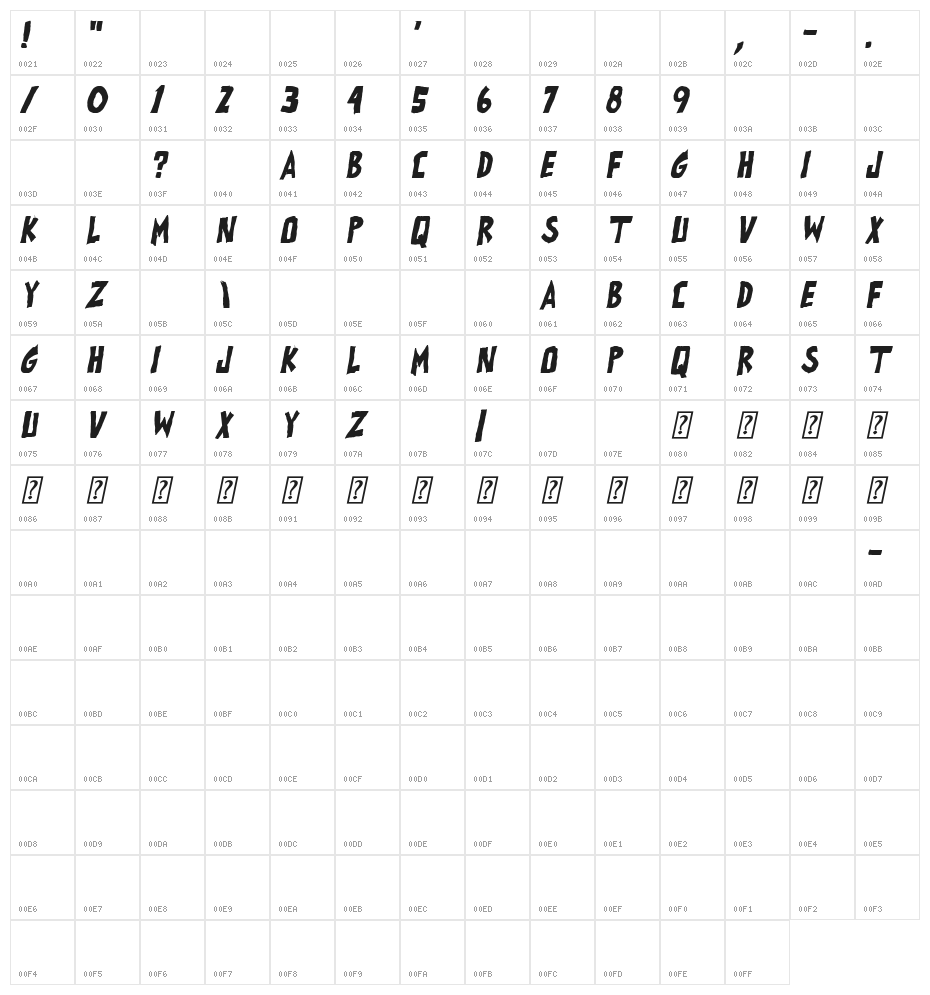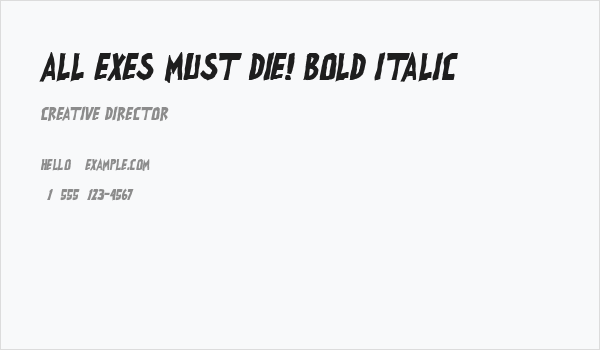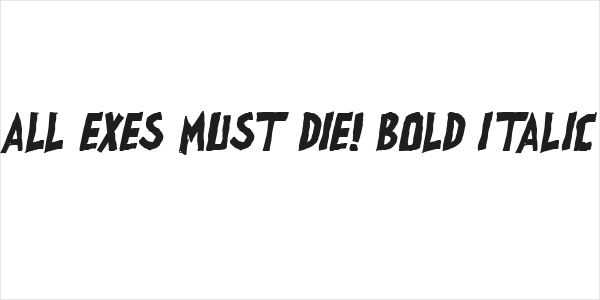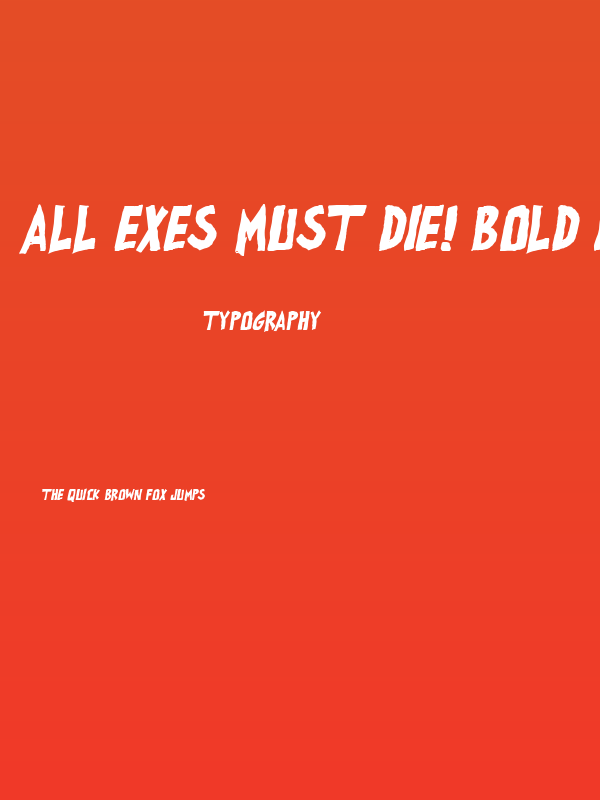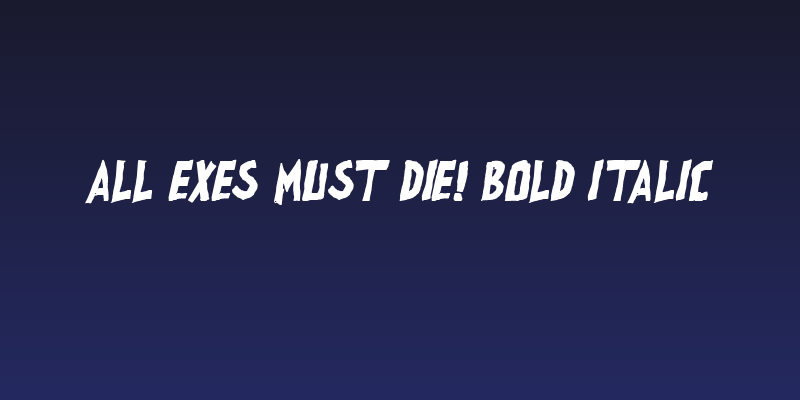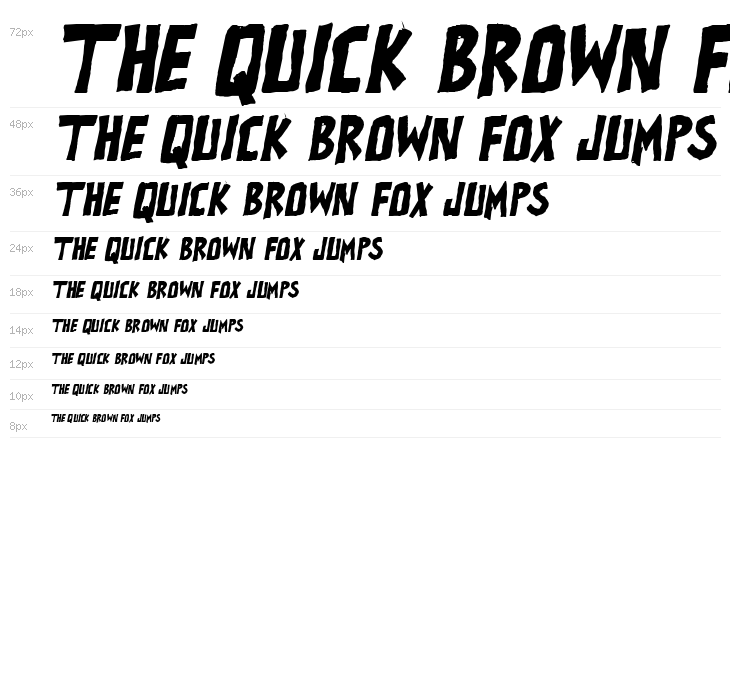
all exes must die! Bold Italic Font
all exes must die! Bold Italic Description
This font features a bold and italicized style with a dynamic, edgy appearance. The characters have a hand-drawn, brush-like quality, giving them a sense of movement and energy. The uppercase and lowercase letters are consistent in their slanted orientation, contributing to a cohesive look. The numbers and special characters maintain the same boldness and angularity, ensuring uniformity across all elements. The strokes are thick and uneven, adding to the font's distinctive and rebellious character. This style is particularly eye-catching and would stand out in any design project.
| Overall Style | Modern, Edgy |
| Proposed Projects | Ideal for posters, album covers, streetwear branding, and edgy graphic designs. |